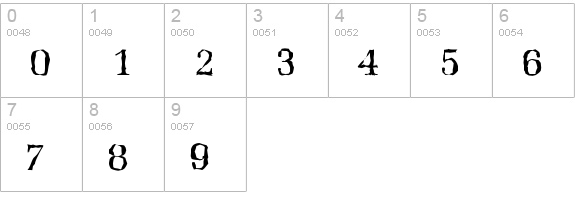
MarseilleRandom-Regular Font Details
MarseilleRandom-Regular is the standard, neutral variant in the MarseilleRandom typeface family \xE2\x80\x94 well suited to general body text, paragraphs, and standard typographic work.
MarseilleRandom-Regular font is a unique and creative typeface that exudes a sense of spontaneity and playfulness. With its irregular shapes and unpredictable strokes, this font adds a touch of whimsy to any design project. The random and quirky nature of MarseilleRandom-Regular font makes it perfect for eye-catching headlines, branding, and creative projects. What's even better is that MarseilleRandom-Regular font is free to download at FontsMarket.com. So, whether you're working on a personal project or a professional design, you can easily access this fun and versatile font without any cost. Add a splash of personality to your designs with MarseilleRandom-Regular font today!